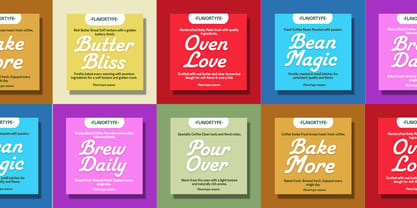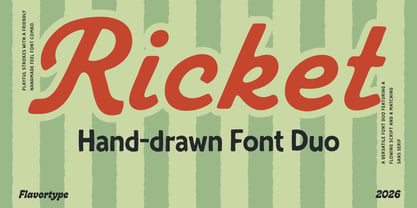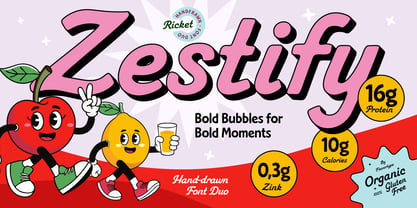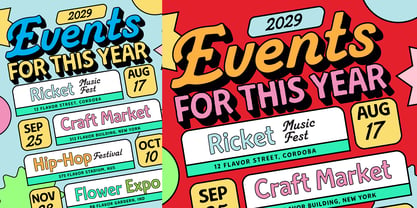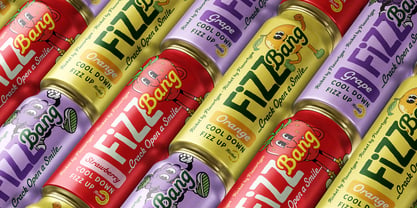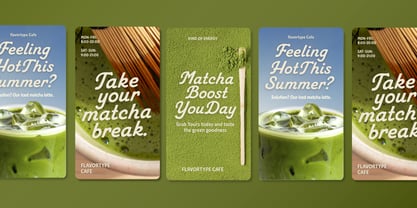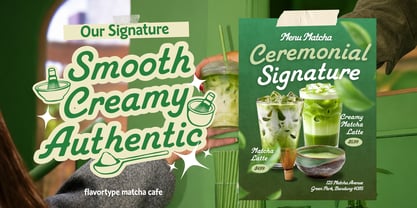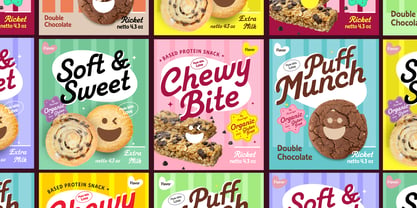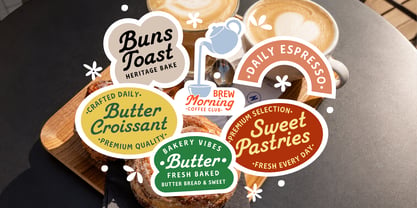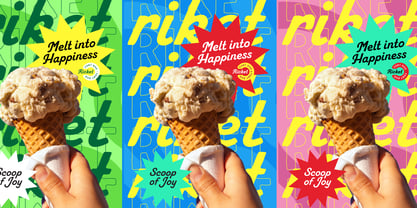
Ricket
by Flavortype
Ricket is a playful hand-drawn font duo made for designs that need a little more personality. It comes with a bold, flowing Cursive and a matching Sans, giving you two different styles that naturally work together.
The Cursive has a soft, chunky feel with loose curves and a bit of that imperfect hand-lettered character. It is expressive without being overly fancy, which makes it especially nice for logos, headlines, packaging, signs, and anything that needs to feel friendly and approachable. The Sans takes the same handmade spirit and turns it into something simpler and more flexible, making it easy to use for supporting text, short descriptions, labels, and branding.
Ricket was designed to feel human, warm, and slightly imperfect rather than overly clean or mechanical. You can use the two styles together for a complete visual identity, or use the Cursive on its own when you want the lettering to do most of the talking.
It works especially well for food and beverage branding, cafes, bakeries, packaging, restaurants, kids products, posters, merchandise, social media, editorial work, and playful lifestyle brands. From a small coffee label to a colorful product package or a big display headline, Ricket is made to bring a little more character into the design.